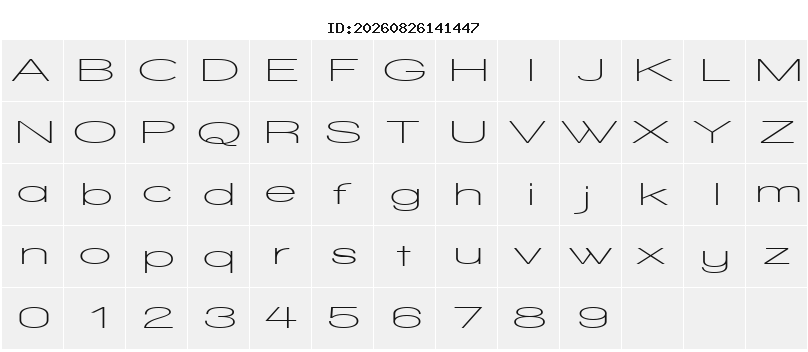
Walkway UltraExpand SemiBold Preview
• Font Name: Walkway UltraExpand SemiBold
• Font ID: Walkway UltraExpand SemiBold
• Full Font Name: Walkway UltraExpand SemiBold
• PostScript Name: WalkwayUltraExpandSemiBold
About Walkway UltraExpand SemiBold.ttf
Walkway UltraExpand SemiBold.ttf is a modern, elegant sans-serif font designed for ultimate readability and visual harmony. Perfect for branding, headlines, web design, and print materials.